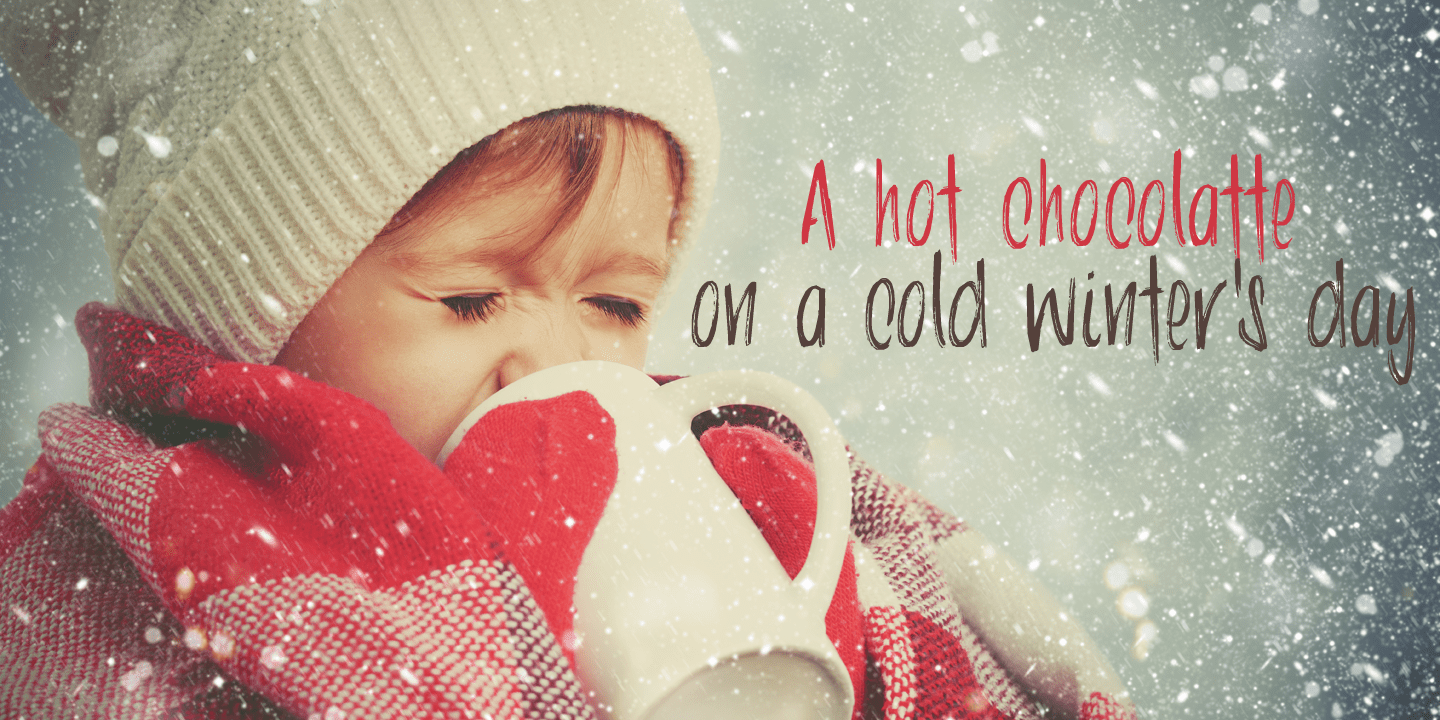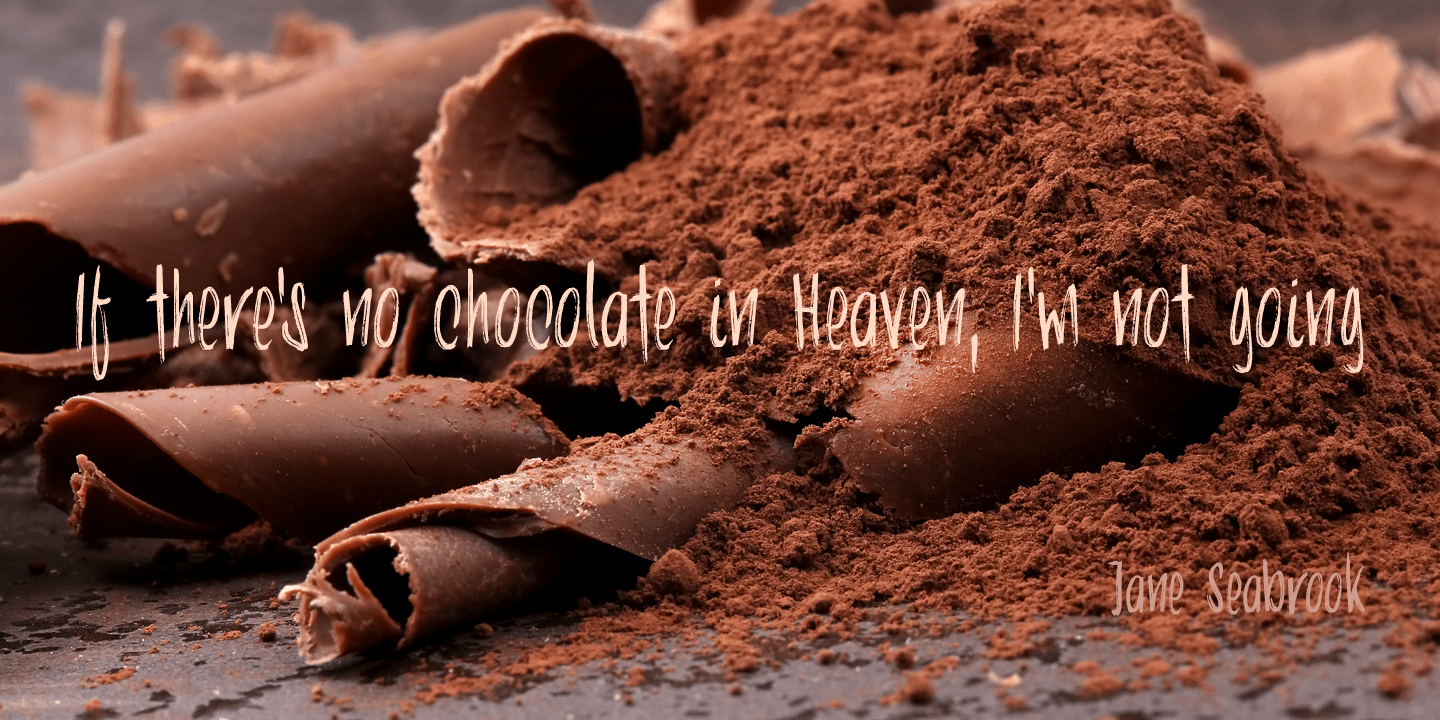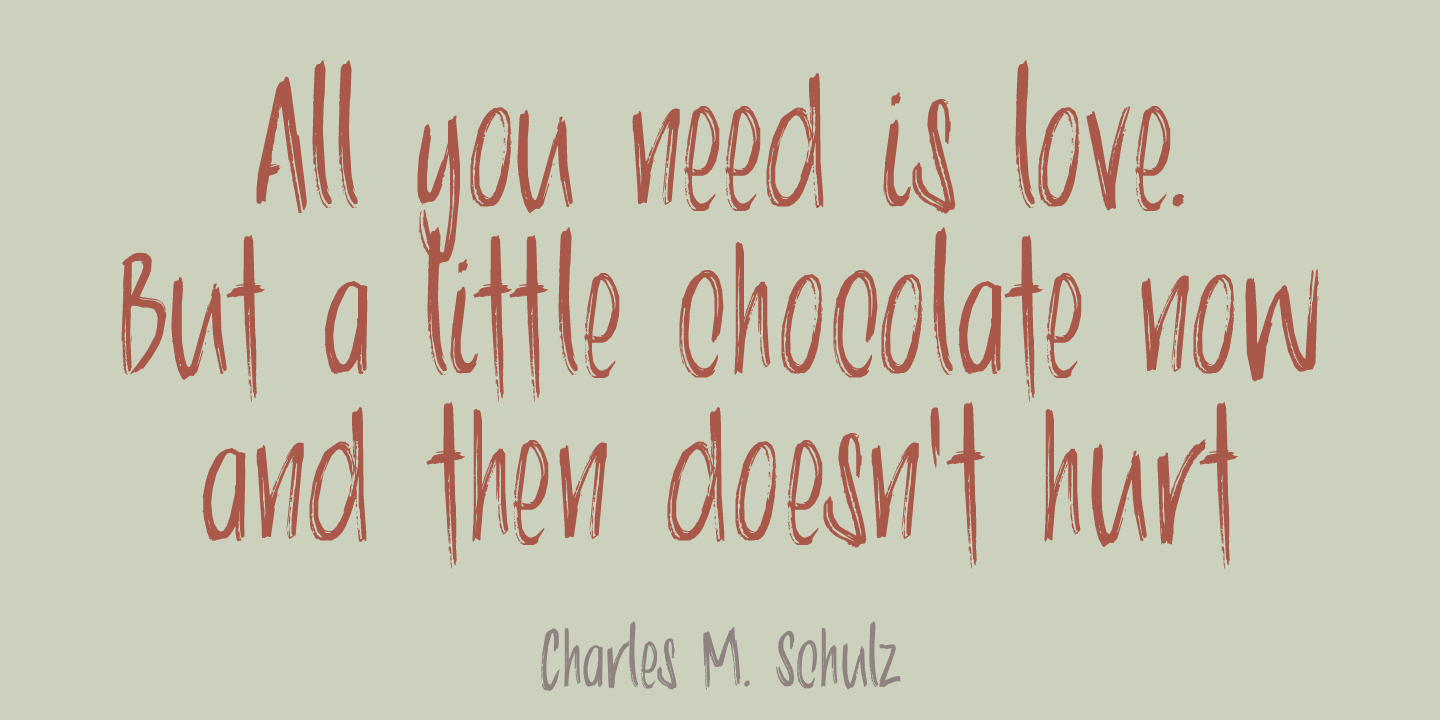
Chocolatte font is a yummy, creamy script font, made entirely with chocolate.. No, sorry, that\’s not true. It was made with a pen, but I thought I?d create a nice urban myth. Chocolatte is a pretty useful font: you can stick it on your X-mas cards, write…